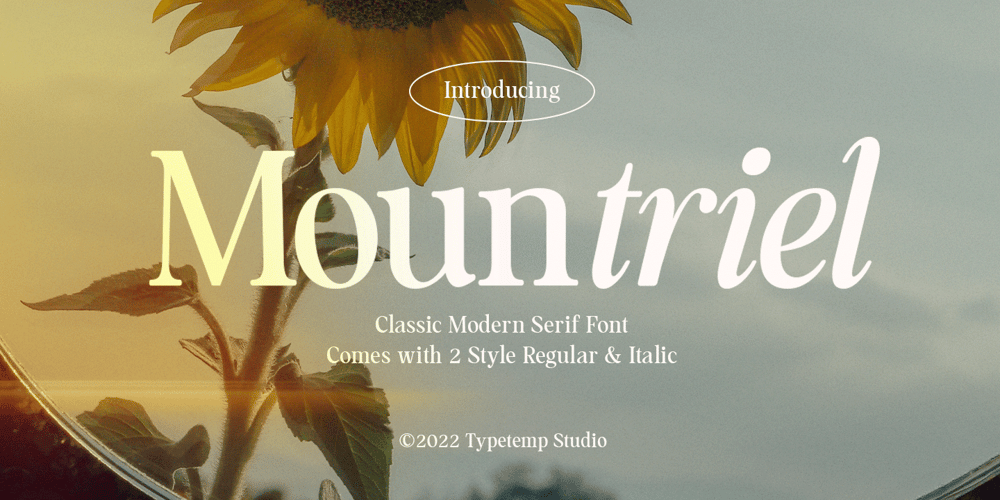
Mountriel
Mountriel font
Mountriel Font Family was designed by Haris Purnama Putra, Egi Ahmad Mufid and published by Typetemp Studio. Mountriel contains 2 styles and family package options. Mountriel – Classic Modern Serif Font is a stylish font It has both Classic modern and 80s 90s look. Comes with alternatives and ligatures, helps to create stunning logos, quotes, posts, blog posts. branding projects, magazine imagery, wedding invitations, and much more.WHAT’S YOU GET ? Unique Letterforms Works on PC & Mac Simple Installations Accessible in the Adobe Illustrator, Adobe Photoshop, Microsoft Word Fully accessible without additional design software. I really hope you’ll get pleasure using Allenoire font and it will be perfect addition to your font collection! Contact me with an inbox message If you have any question. Thank you! Happy Creating.